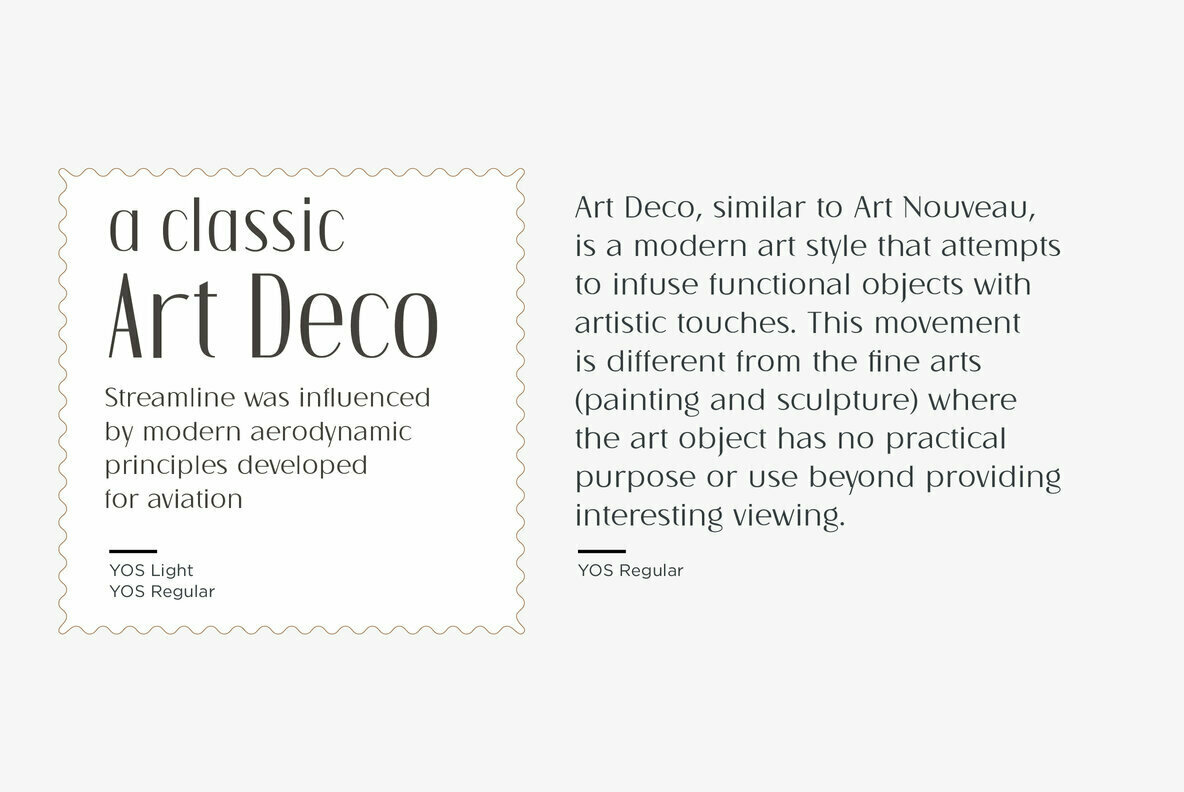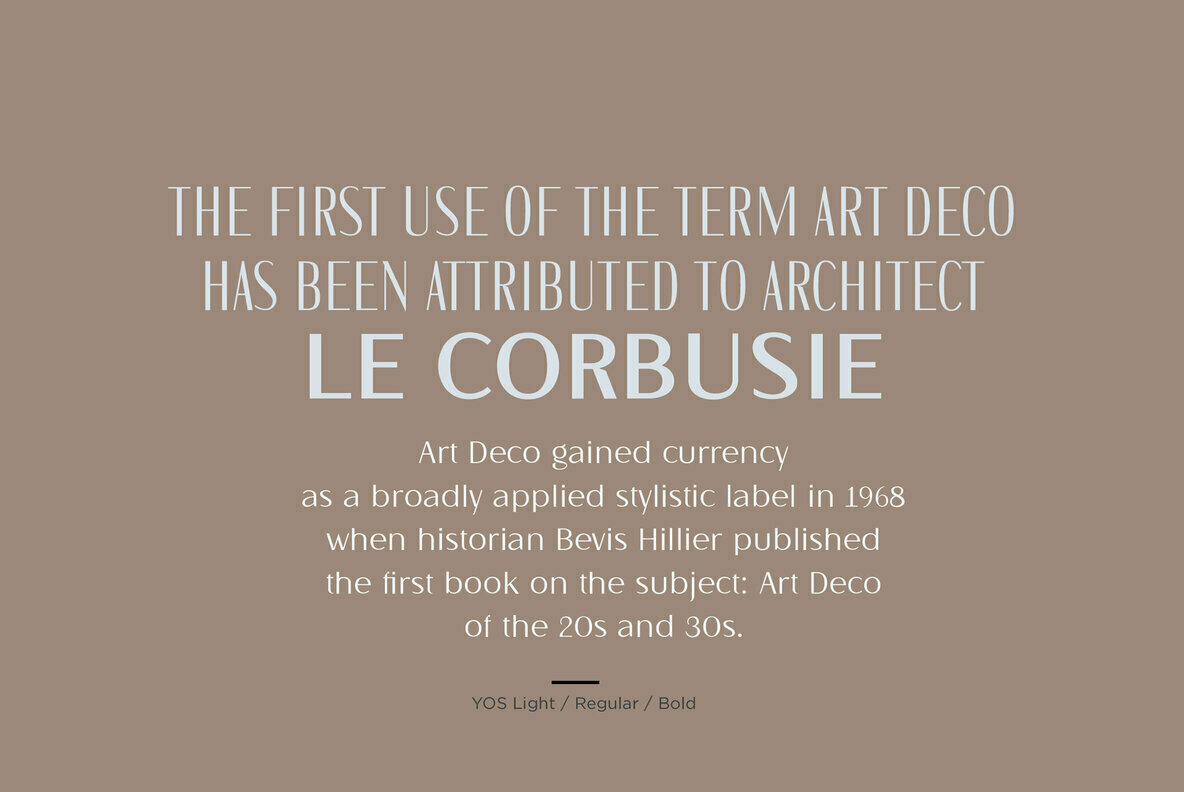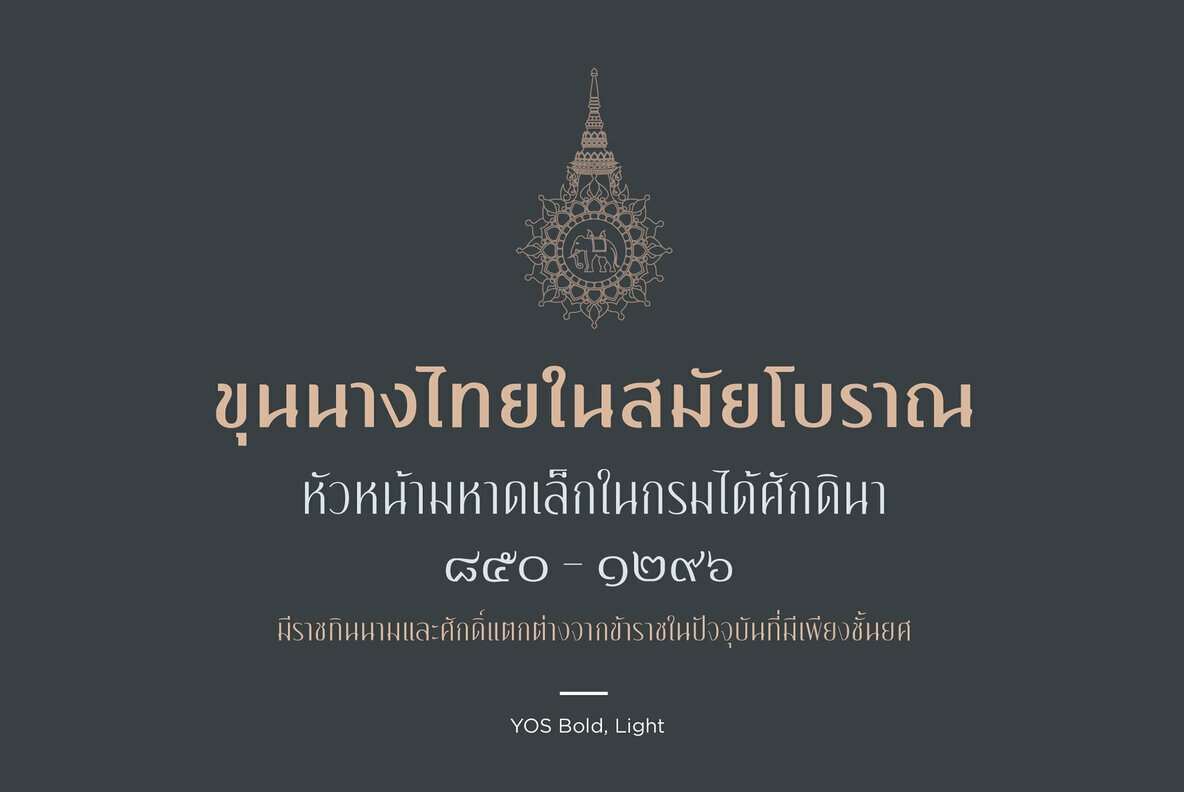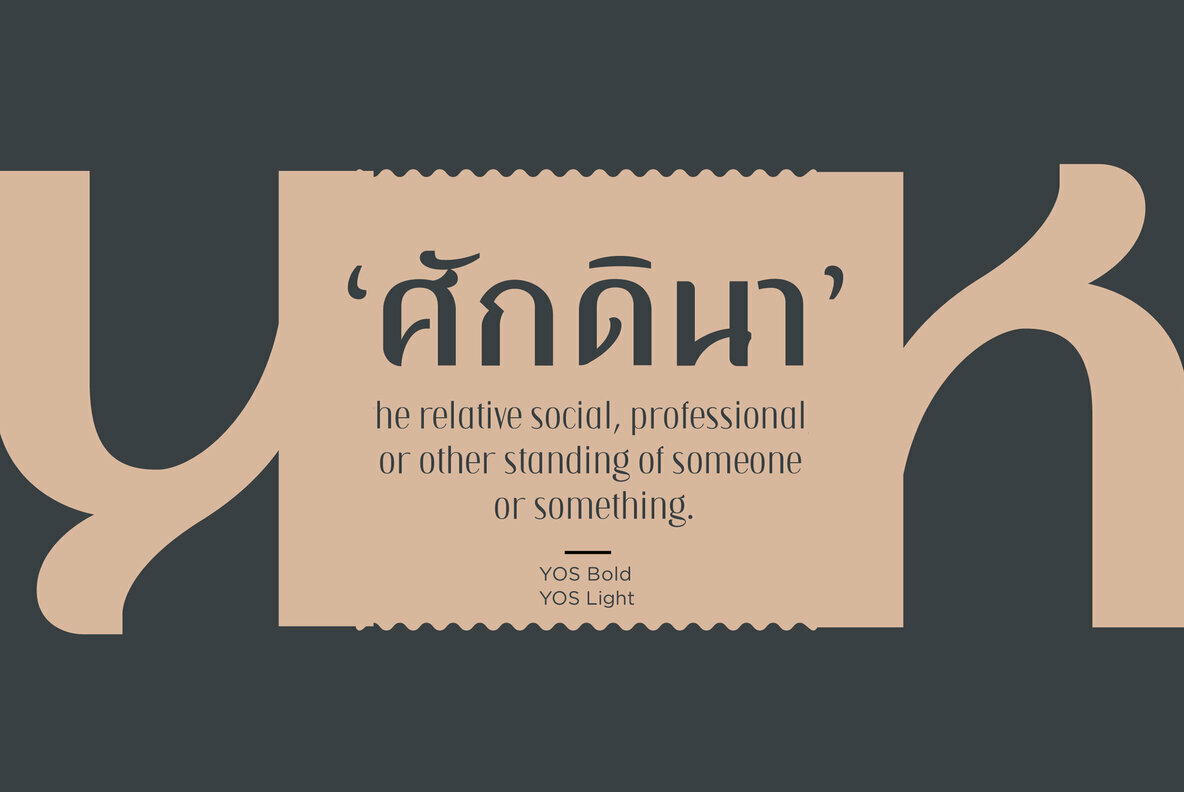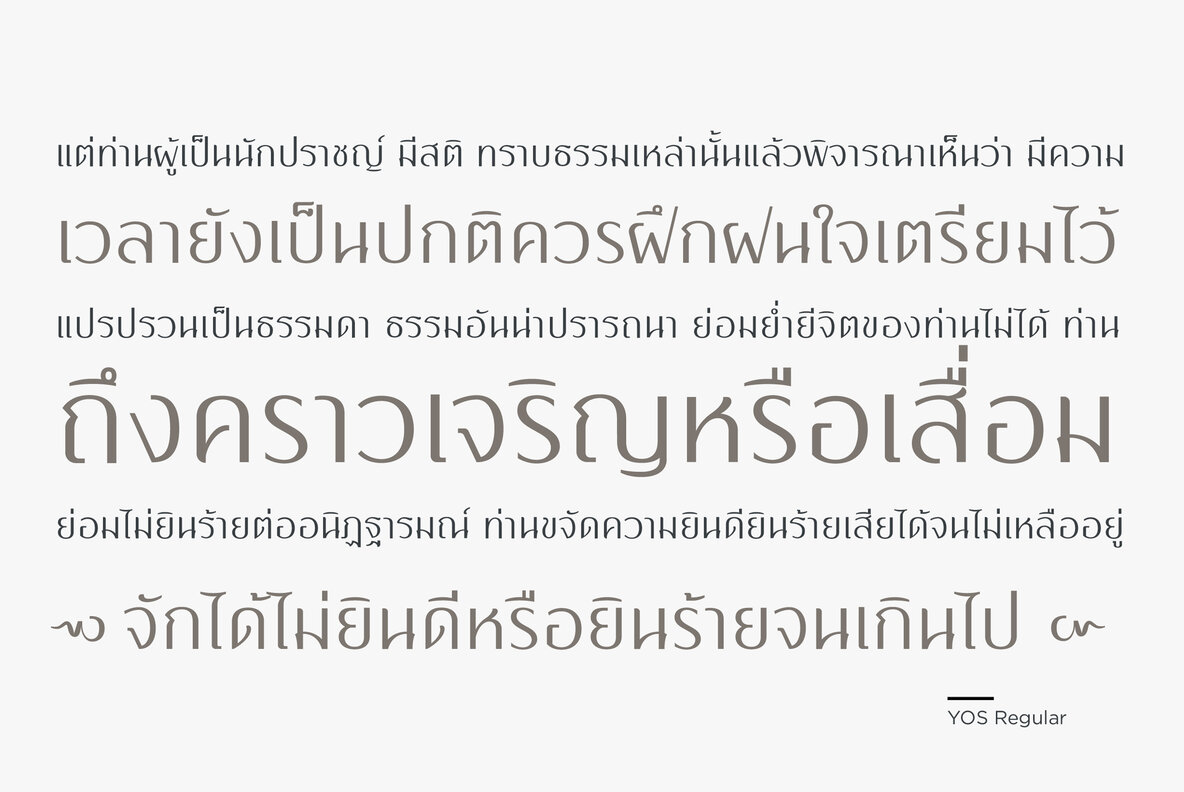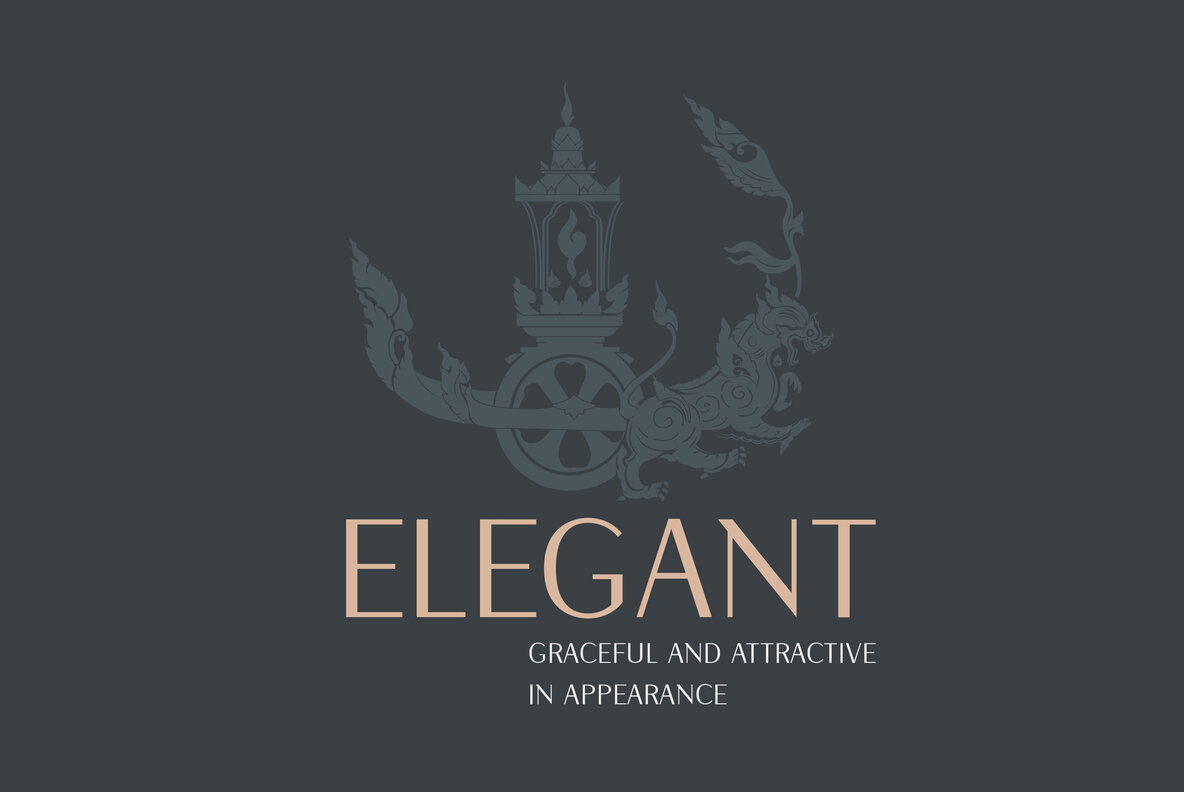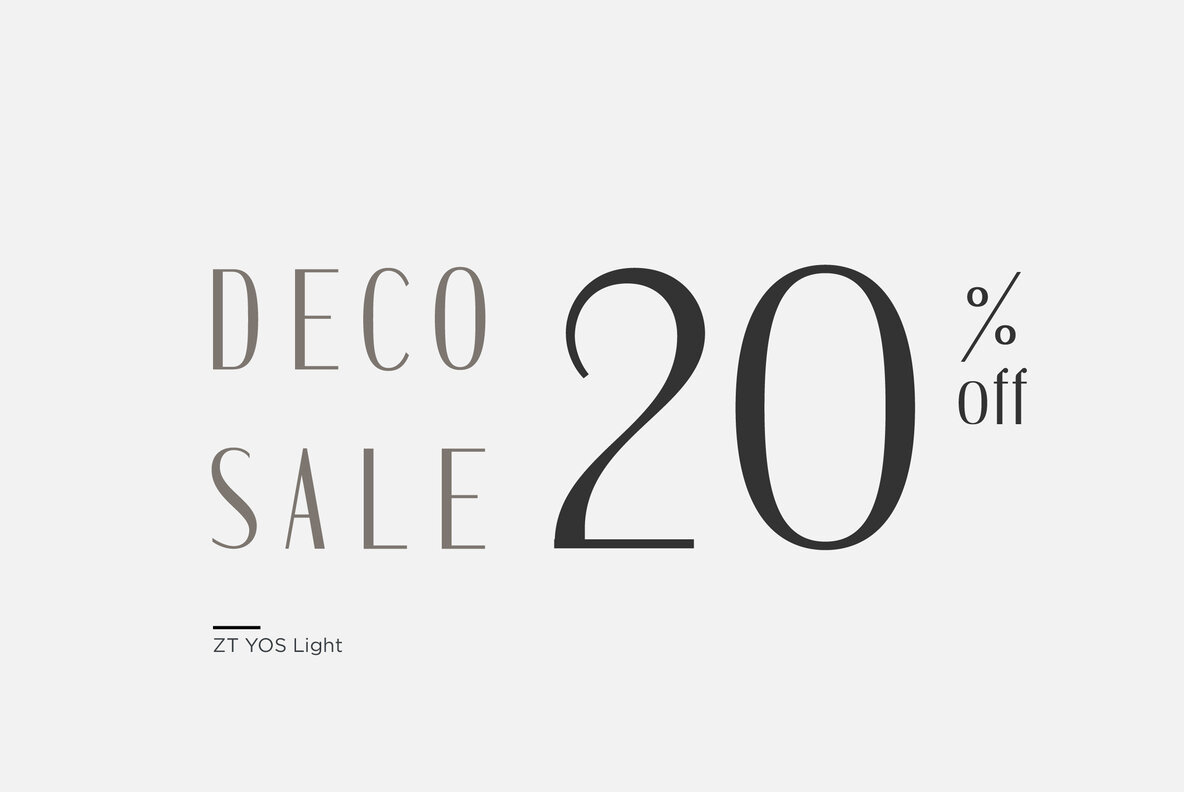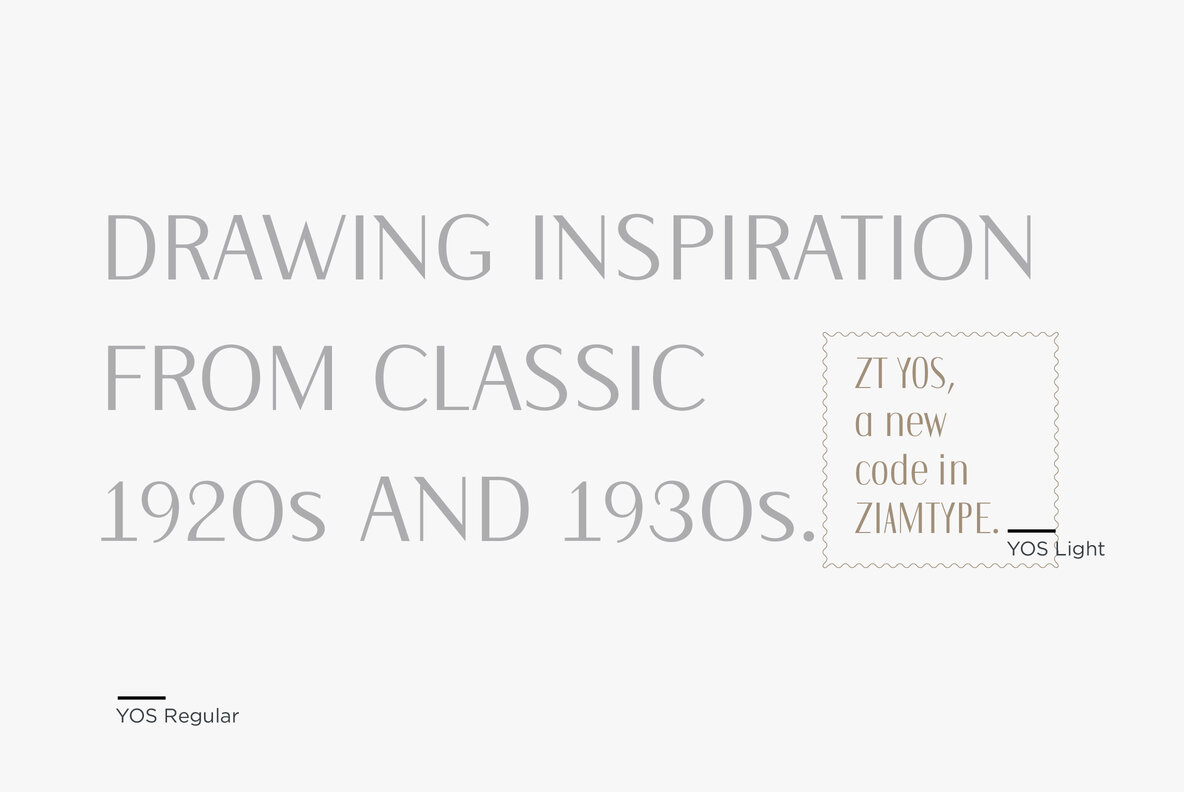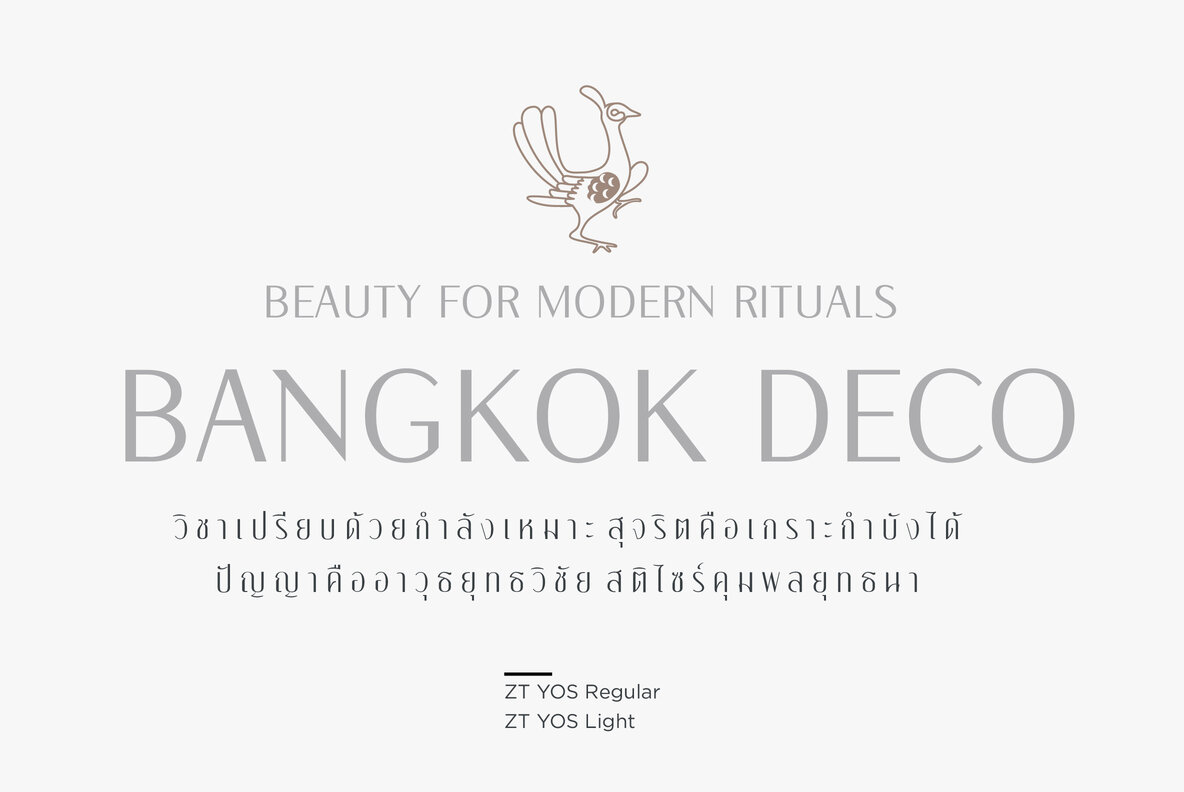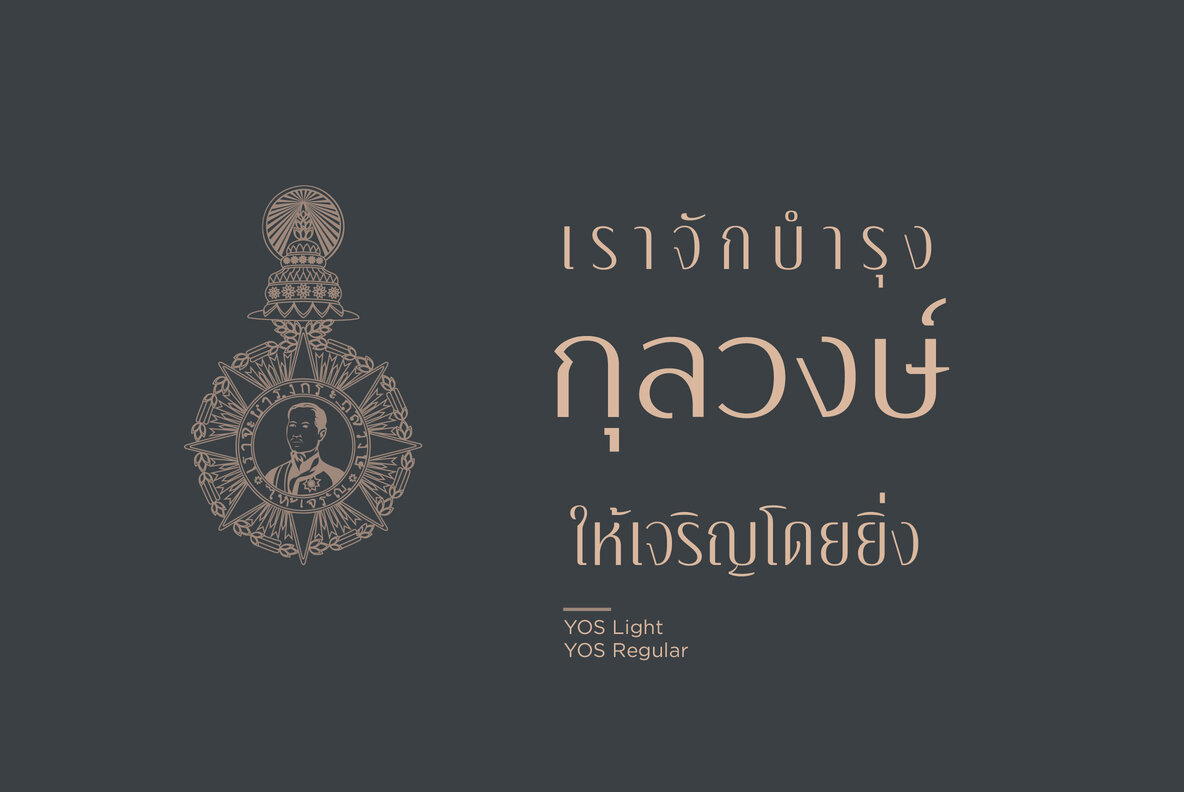
YOS Font
Yos is a modern and fashionable sans-serif typeface, originally designed by Wisit Po.
The font family that comes in 4 different weight and 7 styles: Light, Regular, Bold, ExtraBold and ExtraBold Rustic.
All 7 fonts are coming with upper and lowercase basic characters, numbers, marks and punctuation. Diacritics are also available for Thai, Western languages.